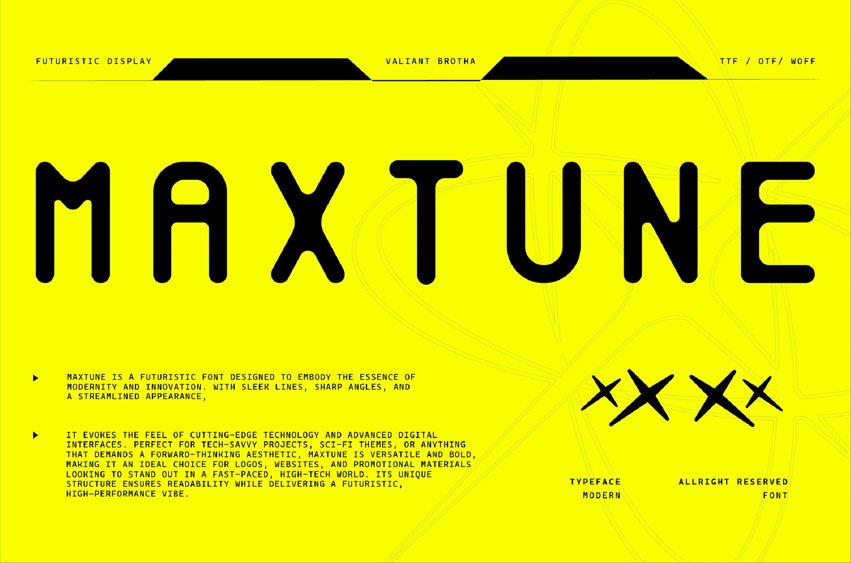
Maxtune Font is a monoline techno style, dynamic typeface that blends strength with sophistication. With its sharp, angular edges and strong, clean lines, this font embodies a sense of power and energy while maintaining a sleek and modern feel.
MAxtune is perfect for projects that require attention-grabbing typography, such as branding, advertising, and digital media. Its unique design gives it an edgy, yet refined quality that ensures your message stands out. Whether you’re looking to make a statement in tech, sports, or entertainment, Maxtune Font delivers a cutting-edge, impactful look that exudes confidence and style.